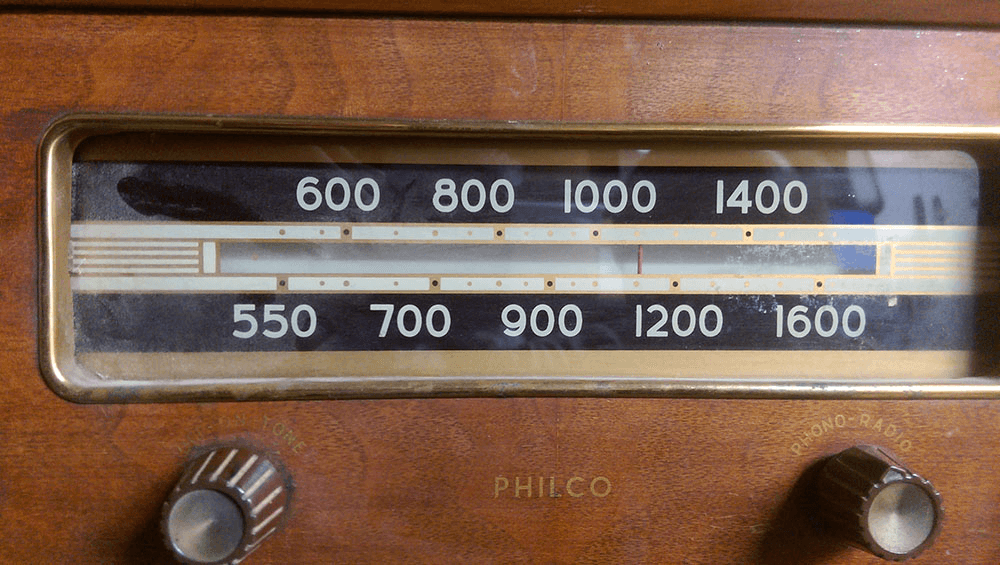
What do you think this font is? (mid-century radio)
This is the face of a 1940's/50's era radio. I'm looking for the number typeface. The closest I got on identifont was Futura or Avenir by using the text below the numbers but it looks like it might not be the same. I really like the wide rounded numbers.